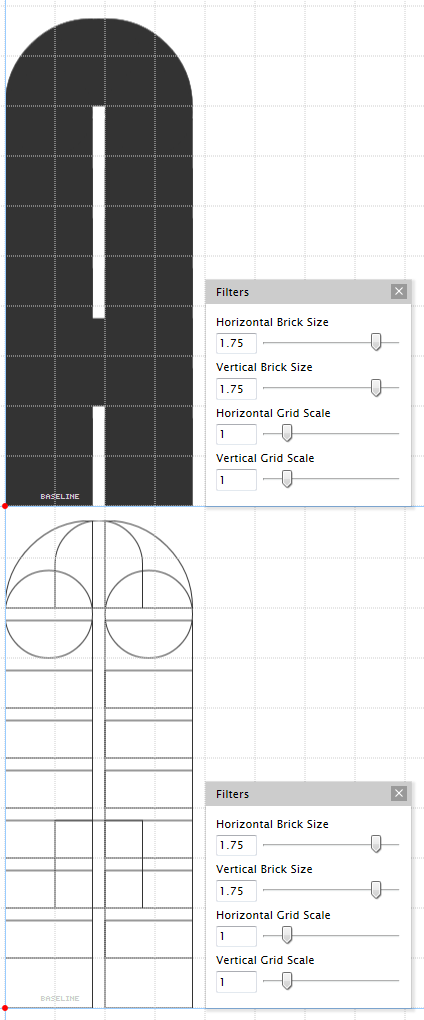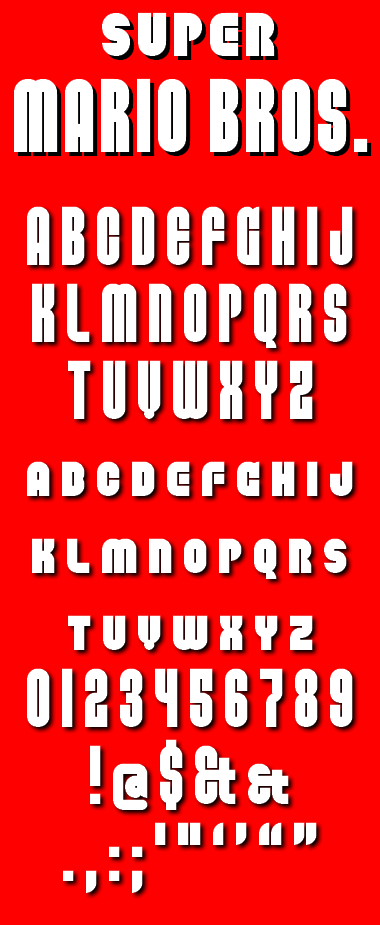
I've been playing a lot of New Super Mario Bros. Wii with the kids.
This is my interpretive-imitation of the logo.
The v and V are the weakest, but I couldn't find a better solution given the constraints of the bricks and filters.
An alternate i is on the # and an alternate (smaller) & is on the
Very convincing ... more so than the excuse that you were playing New Super Mario Bros. Wii with the kids. C'mon ... 'fess up.
I like your solutions better than the original. Excellent reproduction too.
Good job. The V might have been rendered differently, but there aren't many options using variable scaling.
Nice interpretation Aphoria. Between this, DJ Nippa's Grand Theft AutoStruct, Goatmeal's entire catalog and many more, I think soon, FontStruct will have the entire video game industry locked up.
Also, with a few brick deletions (and with a hat tip to Karl Gerstner), you could power up a stencil font so strong it would split Bowser's shell in half.
♥♥♥♥♥ to the Ampersand.
@geneus1 Thanks. I agree about the v and V, but the filter really limited my options there.
@afrojet Thanks and good idea about the stencil version. I've started playing around to see what I can do with it.
@cayo Thank you too...the & is one of my faves.
You could solve your Vv issue like this:
(This is my humble suggestion, of course)
@cayo I had briefly considered that solution, but I thought the difference from the u/U was too subtle.
I just added you suggestion as alternate v/V on the ( and ).
nice clean lines. very modern and now. like the nib on the V - very funky :)
@funk_king Thank you...the v/V has grown on me too.
This is one of the fonts that the 1 pixel bordering is really taking it's toll on. There's got to be a better way.
This ia almost possible with the new connecting bricks...
I was thinking how you made this, and I tried myself.
I got something close, but not exactly.
I made Power-Up many years ago, before many of the more advanced Fontstruct features, like nudging, existed. I used a 1.75 vertical and horizontal brick size filter to achieve the narrow gaps.